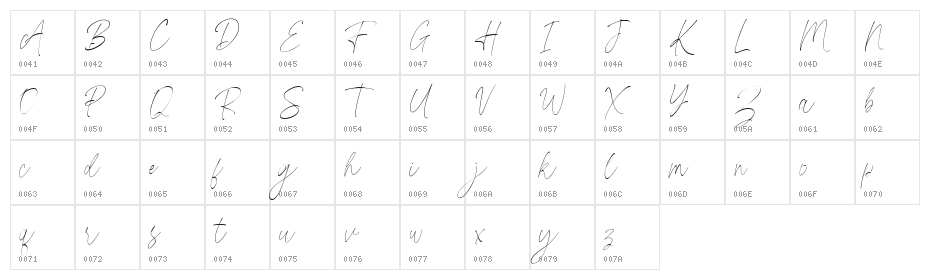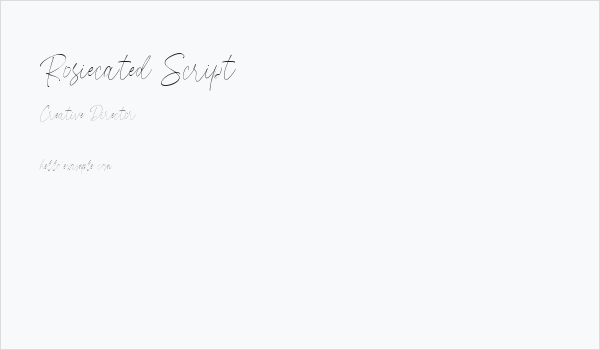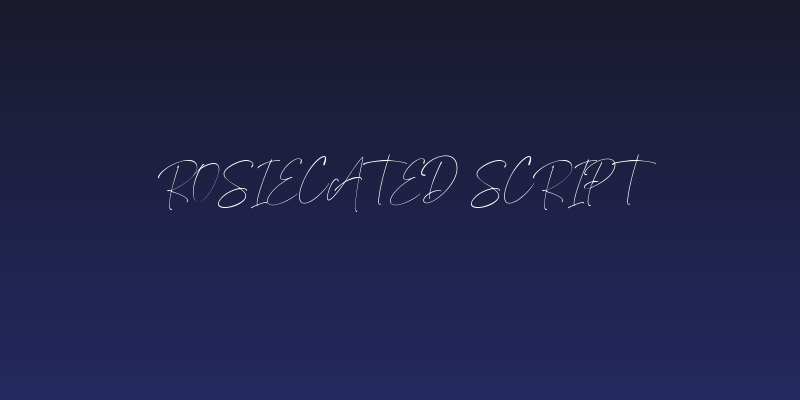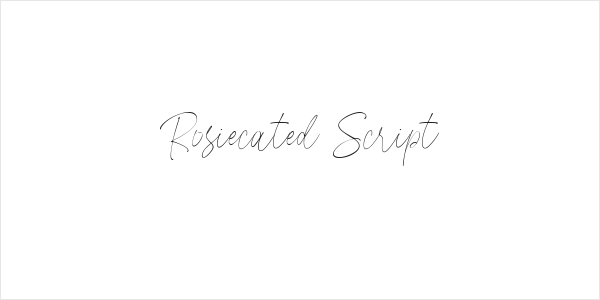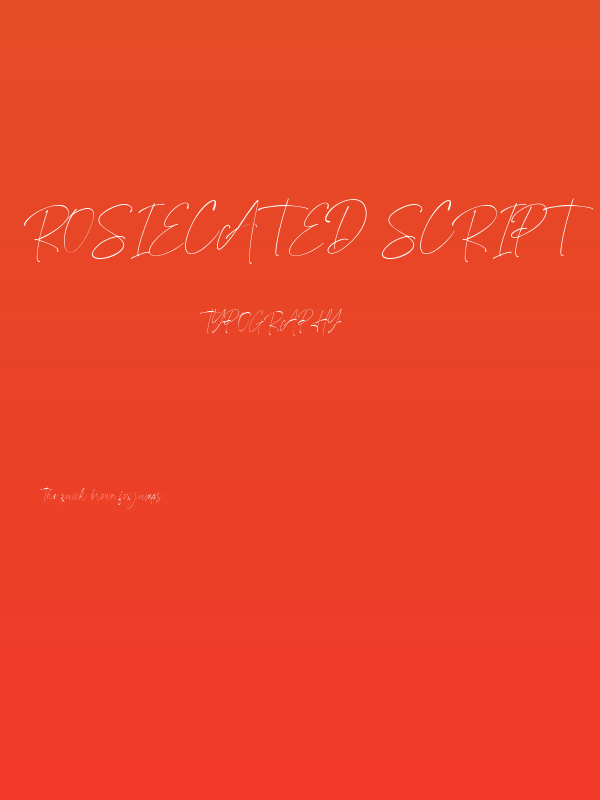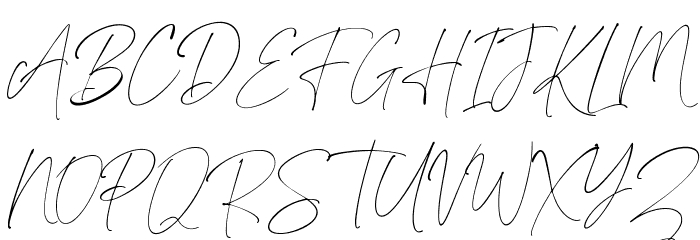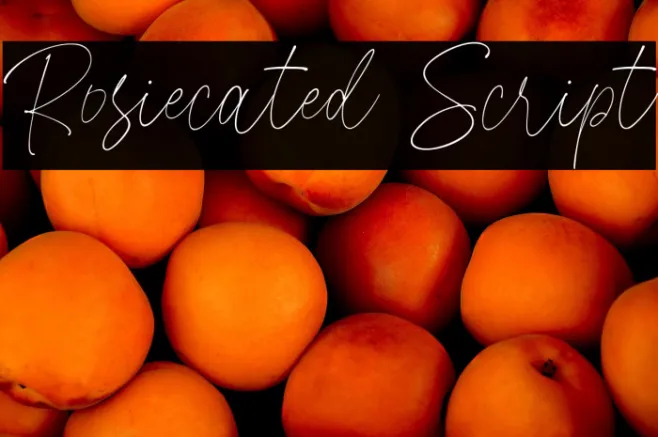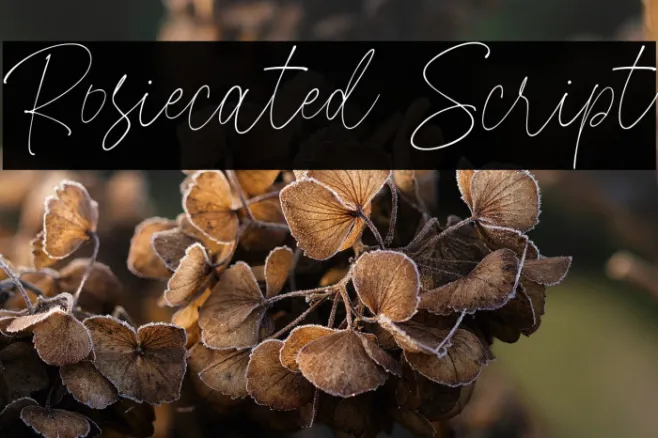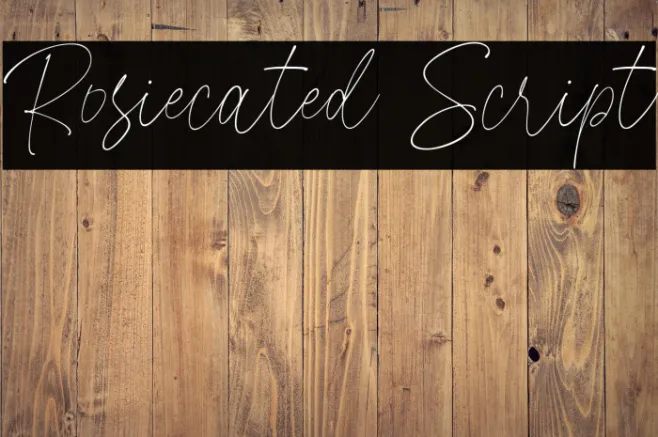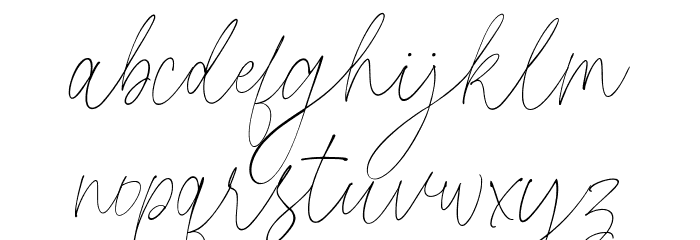
Rosiecated Script Font
Rosiecated Script Description
This script font exudes elegance and fluidity, characterized by its flowing, cursive style that mimics natural handwriting. The letters are connected, creating a seamless and continuous look that enhances its graceful appearance. The strokes are thin and delicate, with a consistent slant that adds to its sophisticated charm. This font is perfect for adding a personal touch to any project, with its airy and light feel making it suitable for both formal and informal designs. The uppercase letters maintain a consistent height, while the lowercase letters exhibit a playful variation in size, adding a dynamic element to the overall presentation.
| Proposed Projects | Ideal for wedding invitations, greeting cards, personal branding, and elegant stationery. |